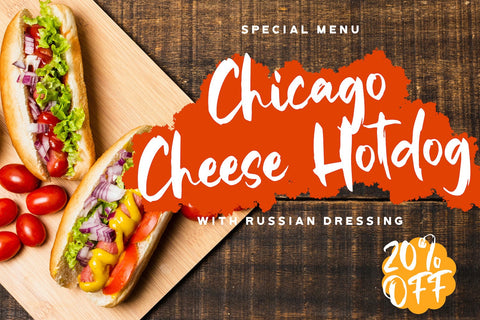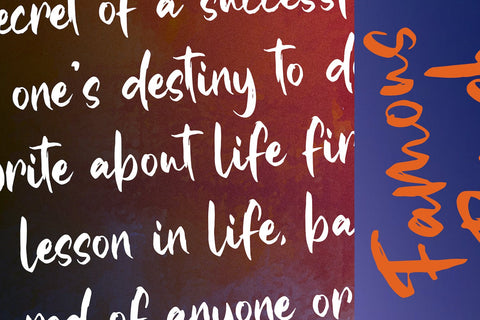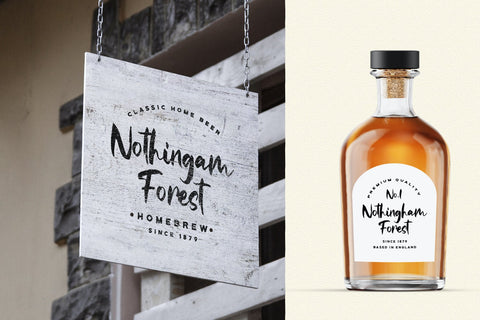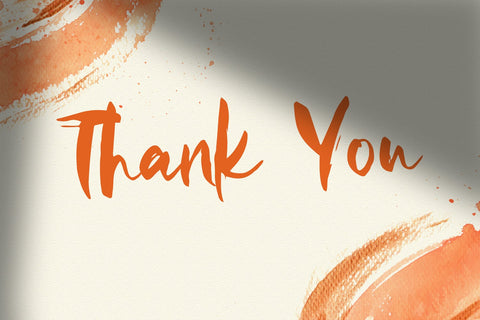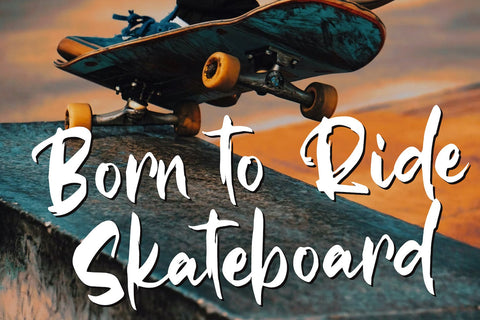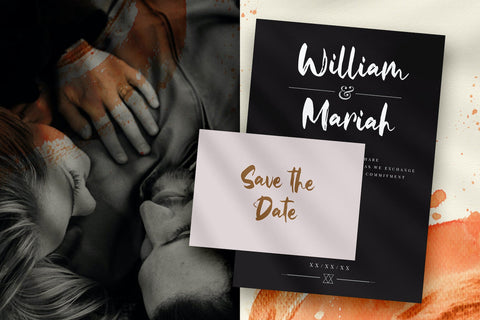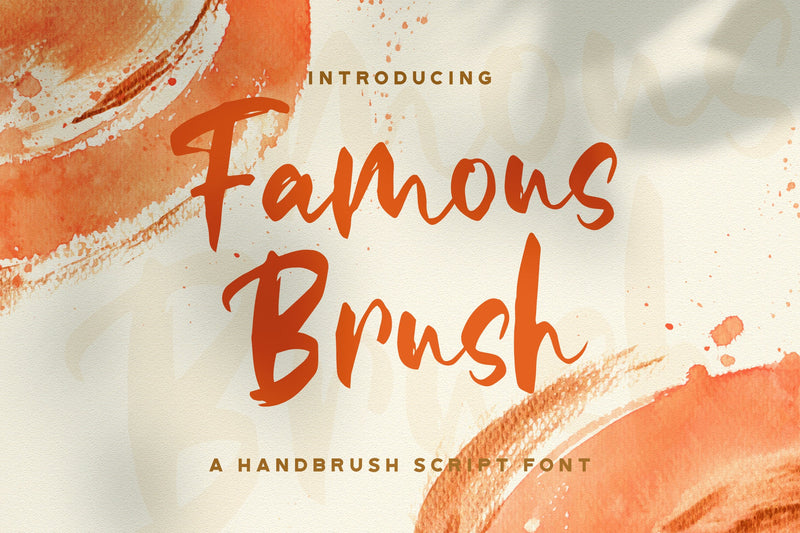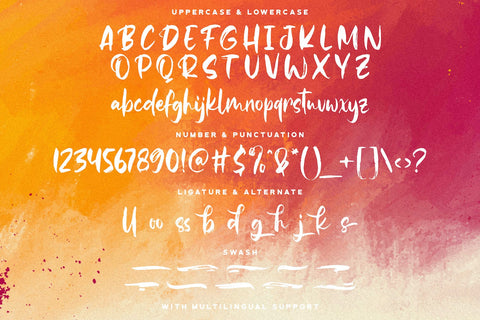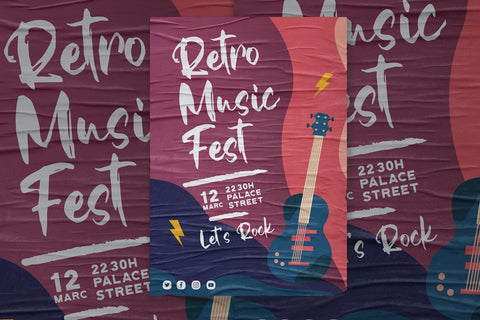
Famous Brush - Textured Brush Font
Introducing Famous Brush - Textured Brush Font
Famous Brush is a textured handbrush font. Get inspired by its unique and beautiful style and add it to your favorite designs!
- Swash